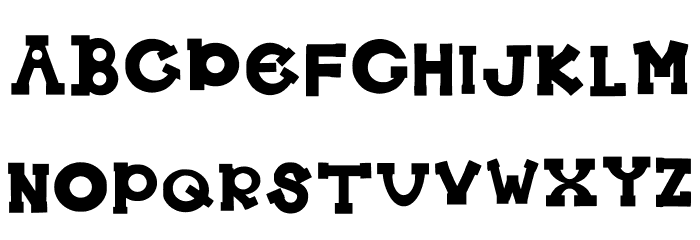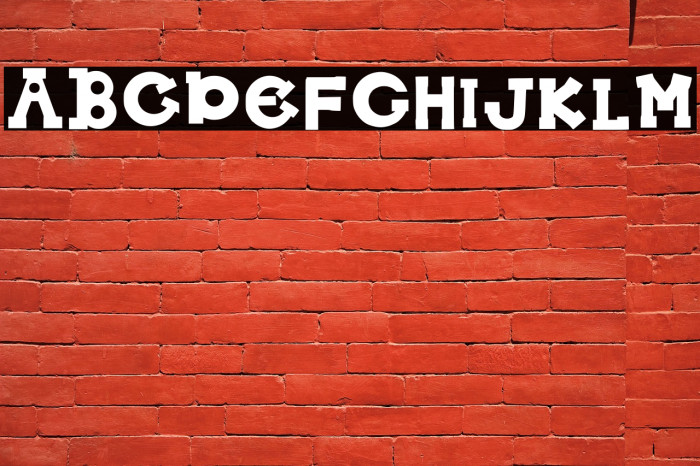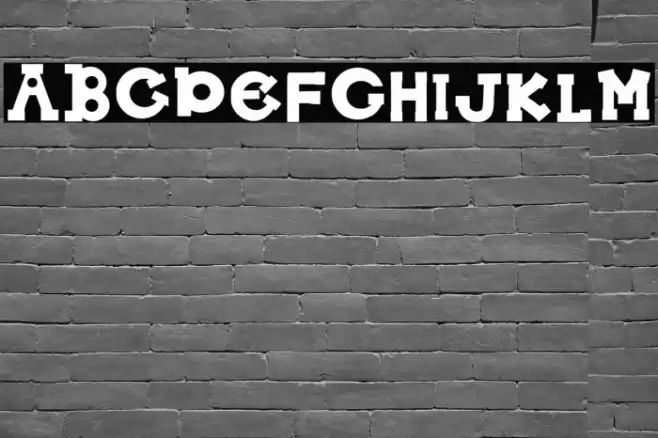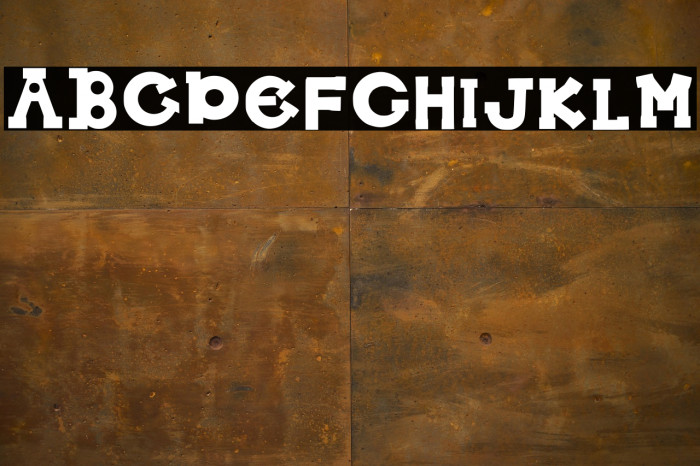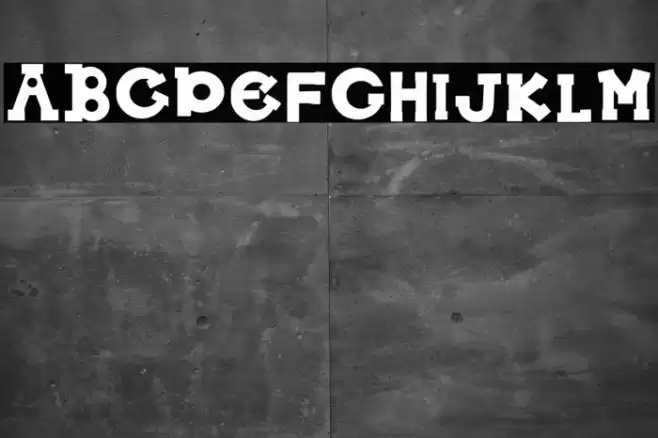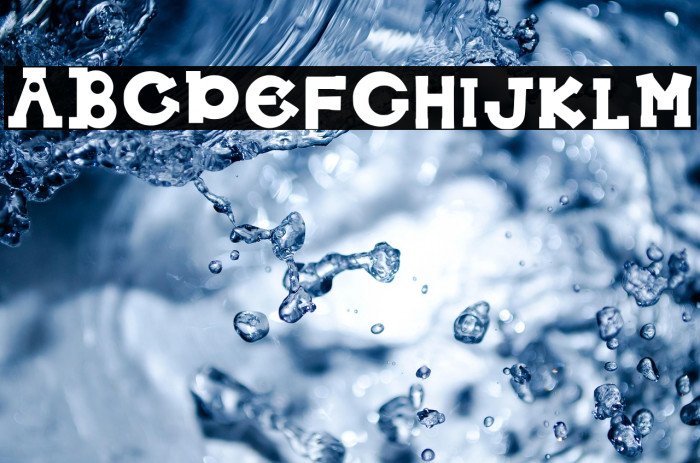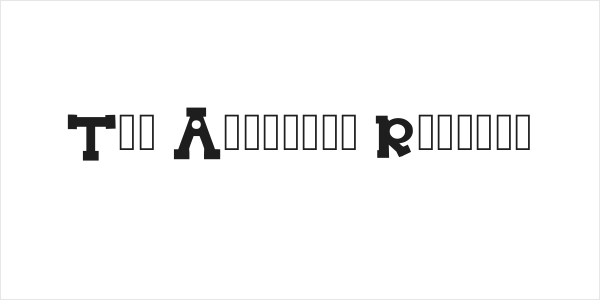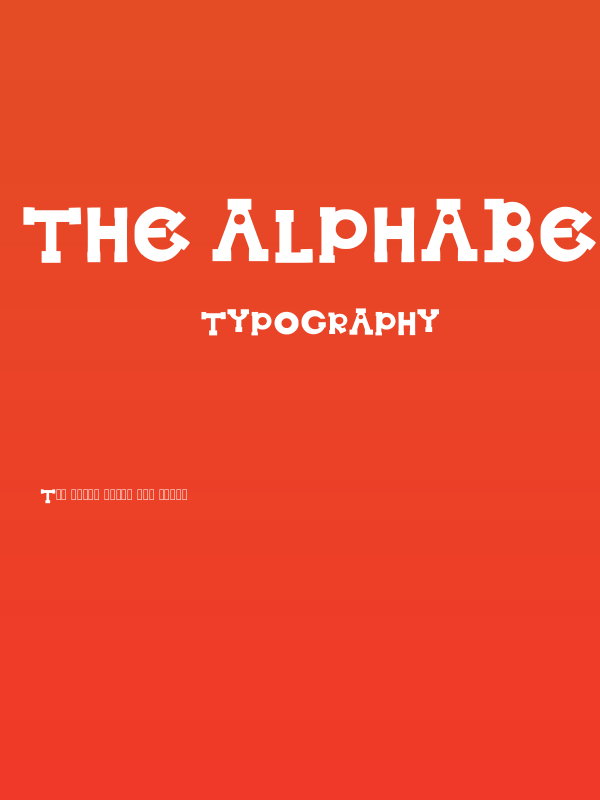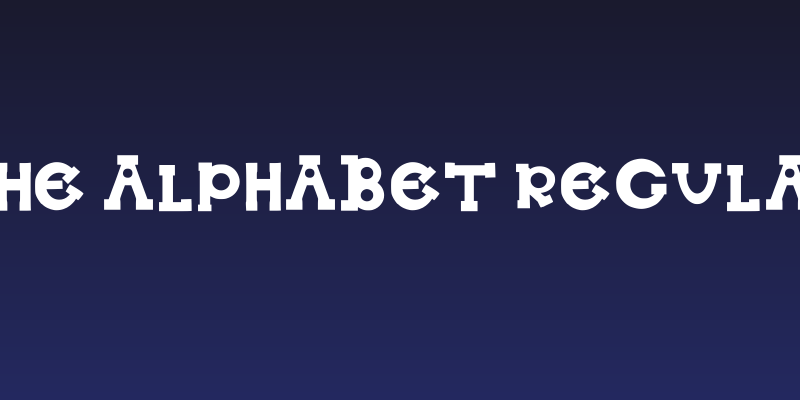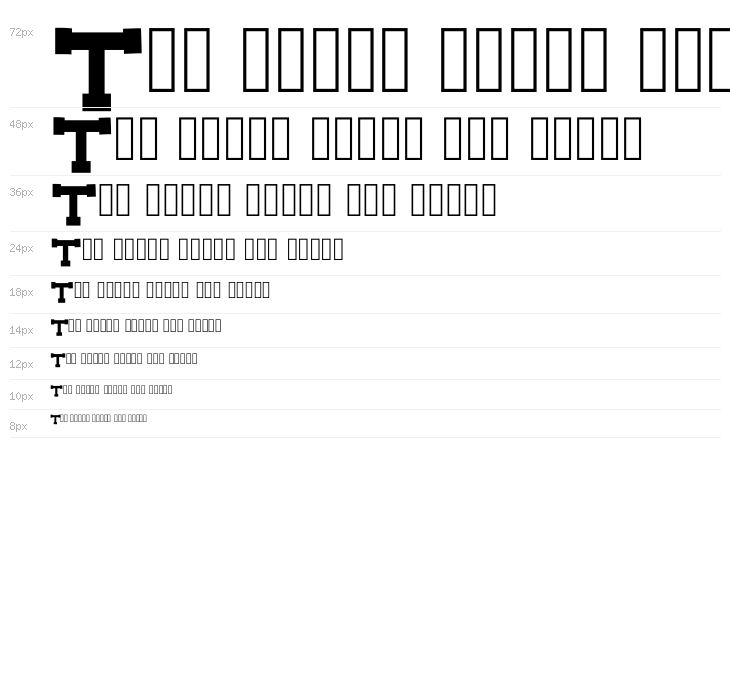
The Alphabet Regular Font
The Alphabet Regular Description
This font features a bold and playful design with a distinct geometric style. Each character is crafted with a combination of thick and thin strokes, creating a high contrast that draws attention. The letters have a unique, almost stencil-like appearance, with cut-out sections that add a dynamic and modern touch. The overall design is both decorative and functional, making it suitable for a variety of creative projects. The font maintains a consistent width across all characters, ensuring uniformity and balance in text compositions.
| Proposed Projects | Ideal for posters, logos, headlines, and branding materials that require a bold and eye-catching typeface. |